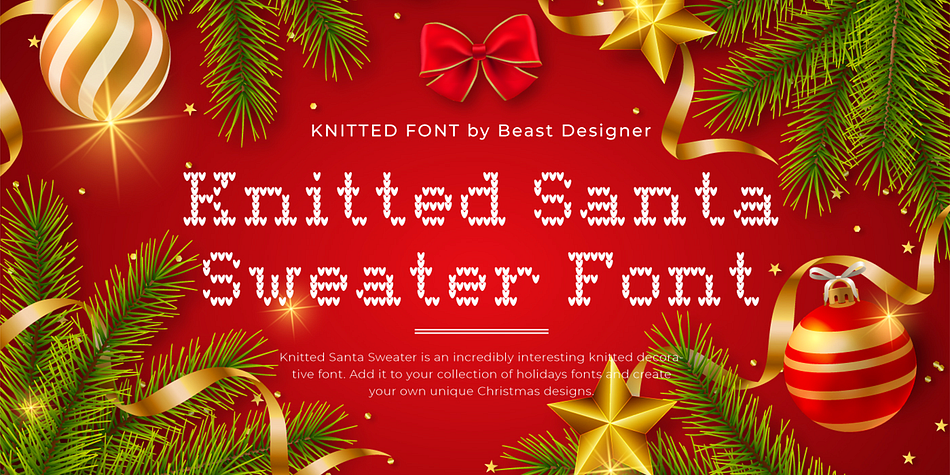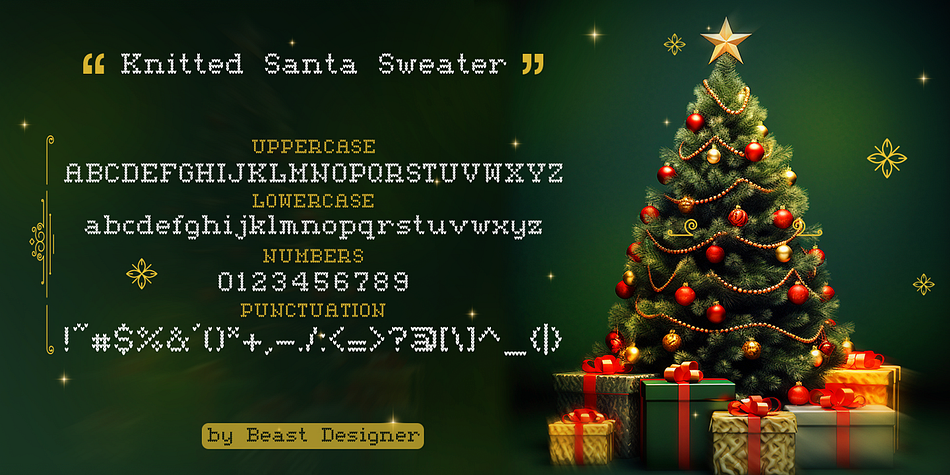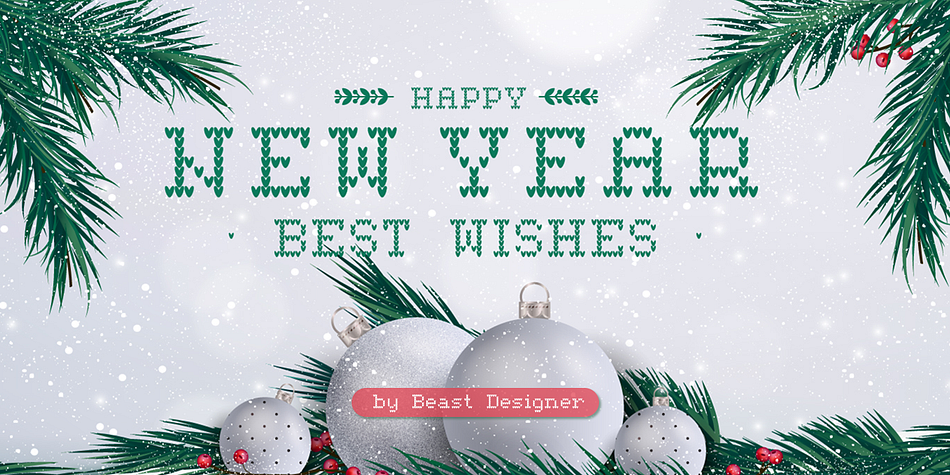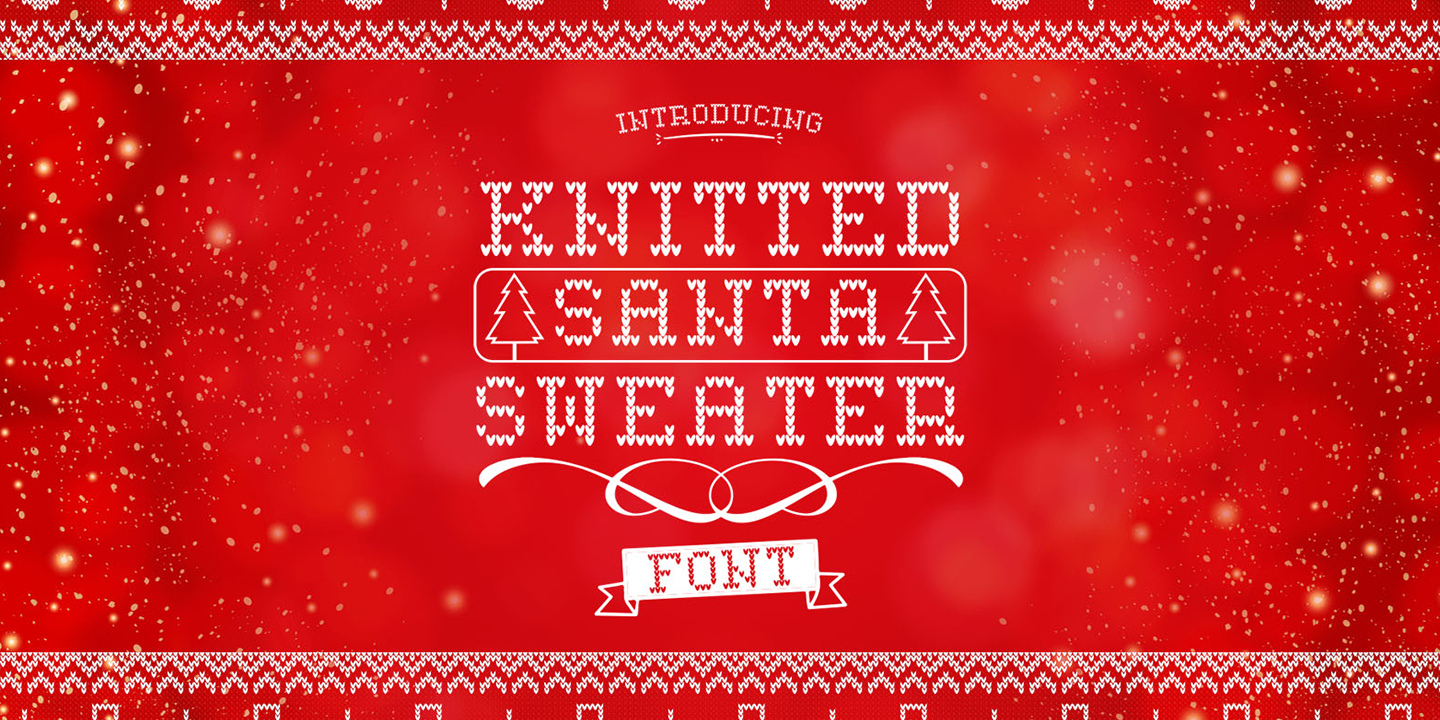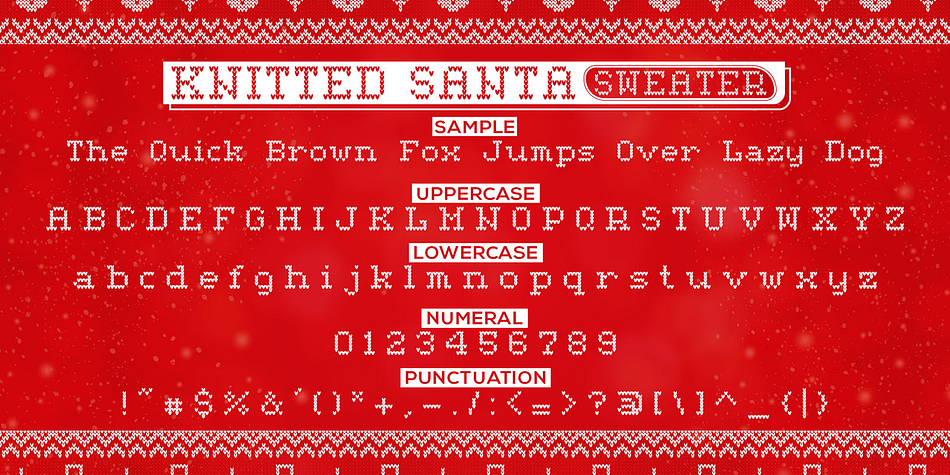
Knitted Santa Sweater
Designed by Mohammed Lamjidi, Knitted Santa Sweater is a display font family published by Beast Designer.
Knitted Santa Sweater is an incredibly interesting knitted decorative font. Add it to your collection of holidays fonts and create your own unique Christmas designs.
Foundry Beast Designer
Designer Mohammed Lamjidi